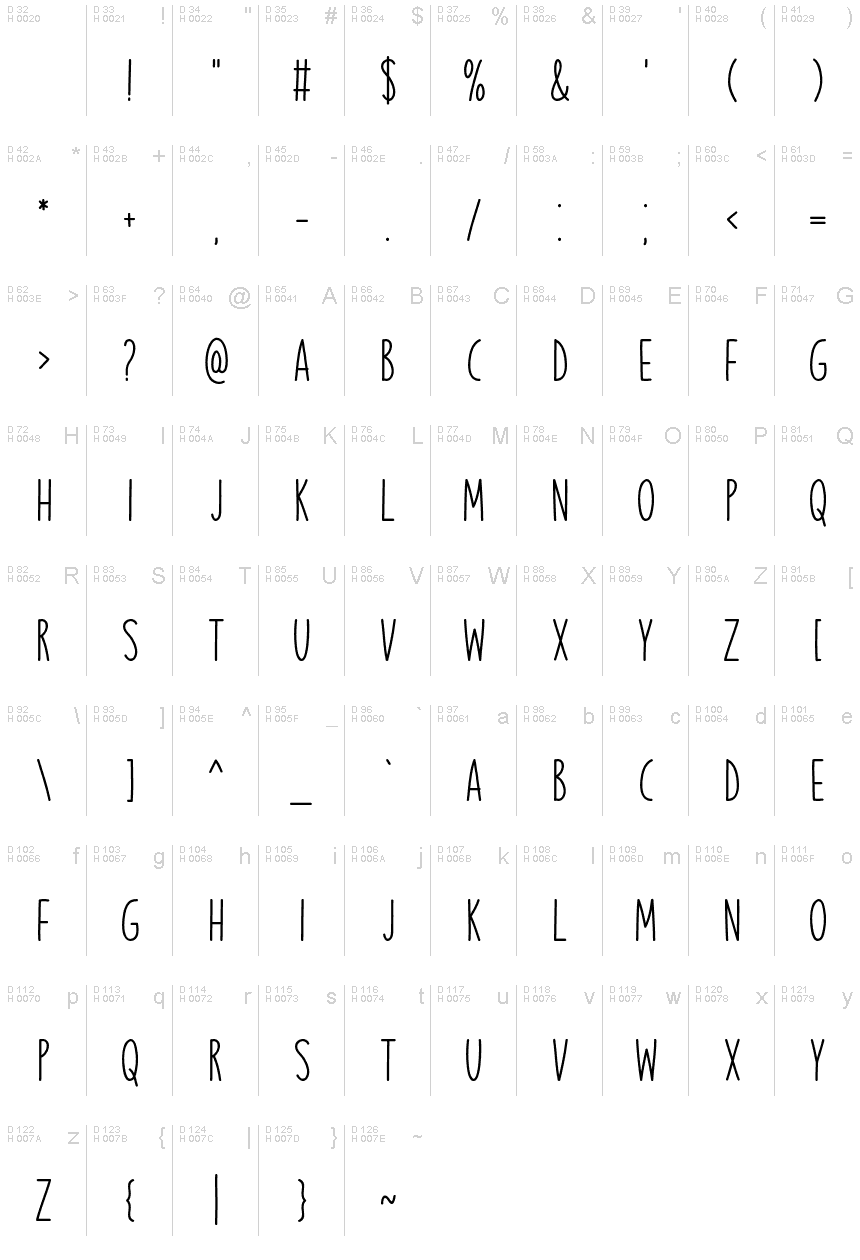
Christmas Vehicle
Get ready for the holiday season with Christmas Vehicle, a delightful all caps handwriting font designed by Md Shohail Bhuian. With its light weight and extra-condensed width, this font is perfect for creating festive greeting cards, invitations, and social media graphics. Add a touch of playfulness to your projects with Christmas Vehicle's whimsical lettering style that captures the joyful spirit of the holidays. Whether you're designing for personal or commercial use, this font is sure to bring a unique and cheerful touch to your work. Spread the holiday cheer with Christmas Vehicle!